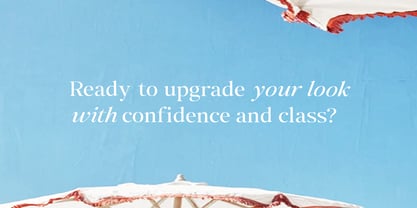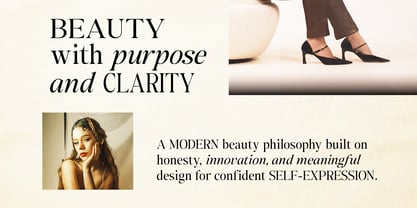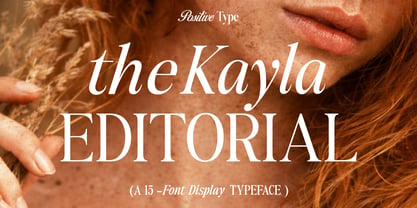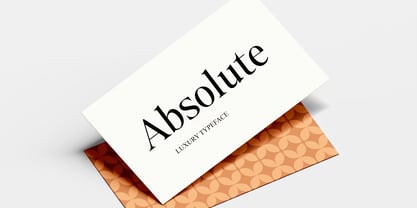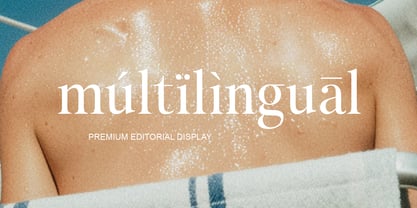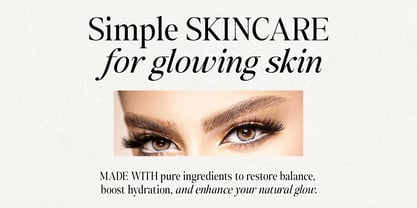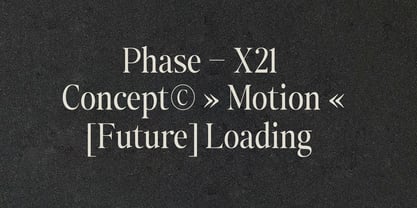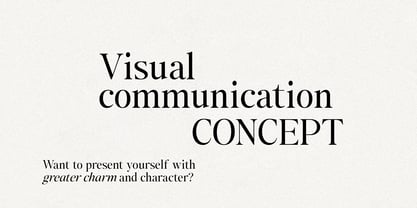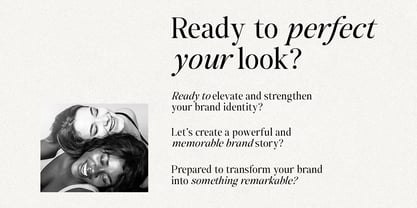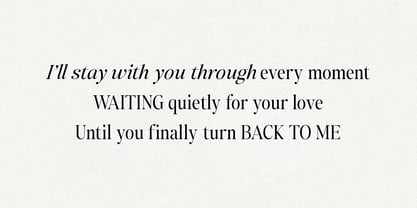
The Kayla Editorial
by Positive Type
The The Kayla Editorial Font Family was designed by Nur Hayati and published by Positive Type. The Kayla Editorial contains 15 styles and family package options. More about this family
The Kayla Editorial – Elegant Display Typeface The Kayla Editorial is a sophisticated and timeless display typeface designed for high-end branding, editorial layouts, fashion projects, and luxury visual identities. Inspired by classic serif typography with a modern touch, this font delivers elegance, clarity, and versatility in every composition. With carefully crafted letterforms and refined proportions, The Kayla Editorial is perfect for magazine headlines, logo design, social media graphics, invitations, packaging, and premium marketing materials. This typeface family includes 15 professionally designed styles, allowing you to create dynamic typography systems and adapt your designs to any creative need. Features Includes 15 font styles Classic serif with modern editorial aesthetics Clean, elegant, and highly readable Perfect for branding, fashion, and publishing Works beautifully in both print and digital designs Professional kerning and spacing Font Styles Included Condensed Italic Condensed Oblique Narrow Regular Italic Italic Narrow Oblique Narrow Expanded Narrow Expanded Italic Narrow Expanded Oblique Narrow Ideal For Magazine & Editorial Design Luxury Branding Logo & Identity Fashion Projects Social Media Templates Packaging Wedding & Invitation Design Website Headlines What You Get 15 Font Files Easy to Install Compatible with Adobe, Canva, Corel, Affinity, and more If you’re looking for a versatile editorial typeface that blends elegance and modern style, The Kayla Editorial is the perfect choice for your next creative project.
Designers: Nur Hayati
Foundry: Positive Type
The Kayla Editorial